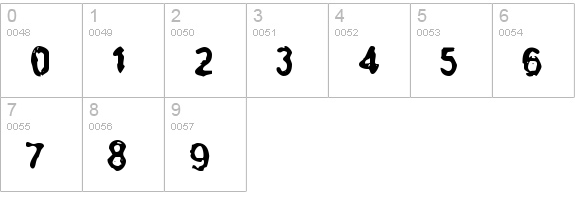
BN-NoFear Font Details
Introducing BN-NoFear font, a bold and dynamic typeface designed to make a statement. With its strong lines and modern aesthetic, BN-NoFear is perfect for eye-catching headlines, branding projects, and bold design elements. This versatile font exudes confidence and adds a touch of edginess to any project. What makes BN-NoFear even more appealing is that it is available for free download at FontsMarket.com. Yes, you read that right - this striking font can be yours at no cost, making it a valuable addition to your font library without breaking the bank. Don't miss out on the opportunity to enhance your designs with BN-NoFear - download it today and let your creativity shine!